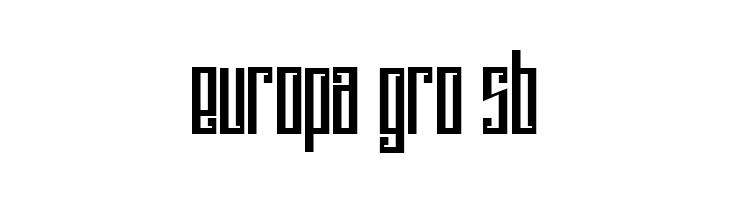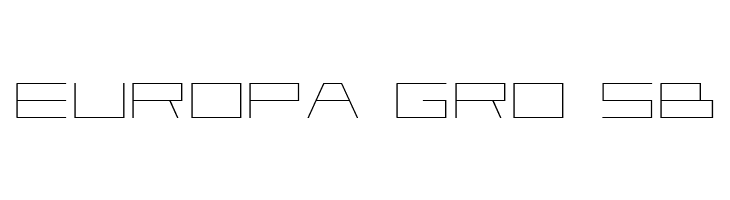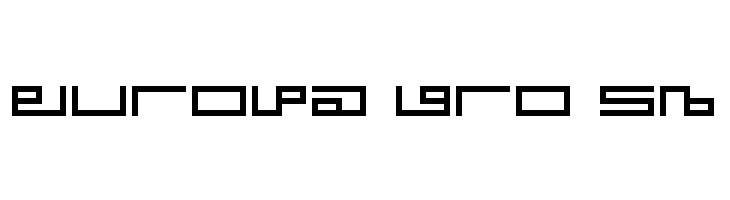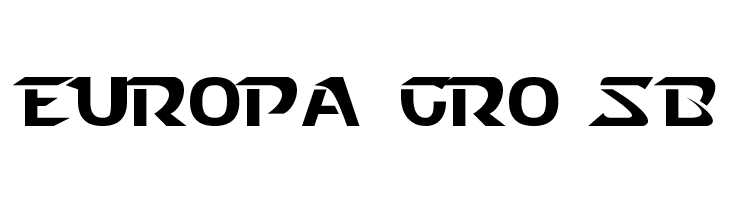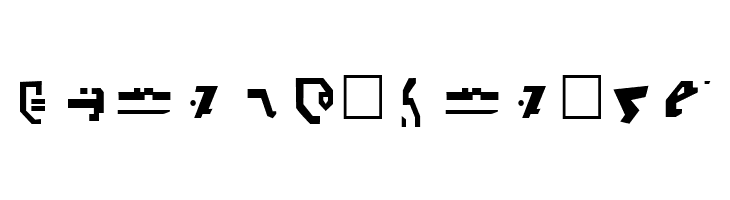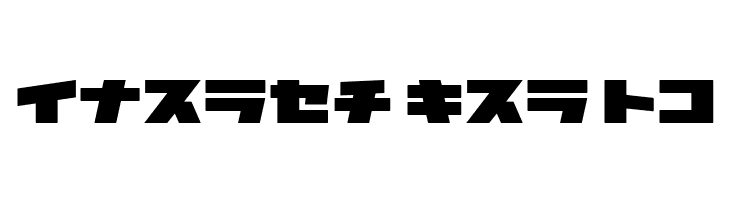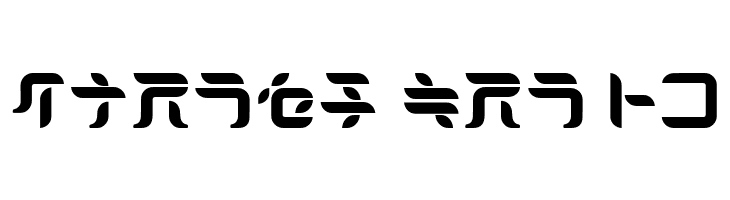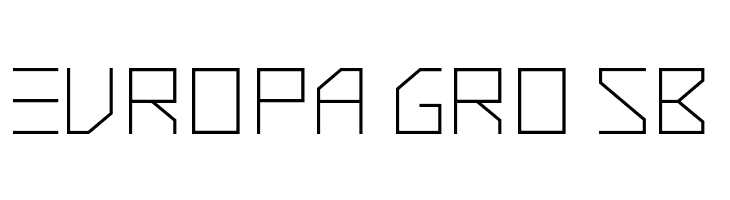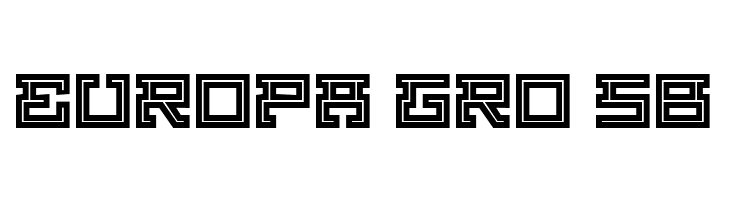
• Psychotic Robots
( Fonts by Tom Kolter - www.ghostsofbigfoot.com )
A futuristic, robotic font with tall, narrow letterforms and sharp angles.
• Player 1 Up Expanded
A geometric, angular font with a futuristic and technical style.
• Tegma Regular
( fontstruct.fontshop.com/fontstructors/neoqueto )
A geometric, futuristic font with angular, block-like letterforms.
• Starcraft
( Fonts by Neale Davidson - www.pixelsagas.com )
A bold, futuristic font with angular, geometric shapes.
• Decepticon Regular
• Digitalism
• AstroZKtB
( Fonts by Maniackers Design - www.mksd.jp OFF SITE )
• DorisorangeKT
( Fonts by Maniackers Design - www.mksd.jp OFF SITE )
A futuristic and abstract font with bold, geometric shapes and rounded edges.
• KnarfArtFont-Regular
A geometric, angular font with a futuristic and technical aesthetic.
• HOMIGOS
A bold, geometric font with a modern, futuristic aesthetic.